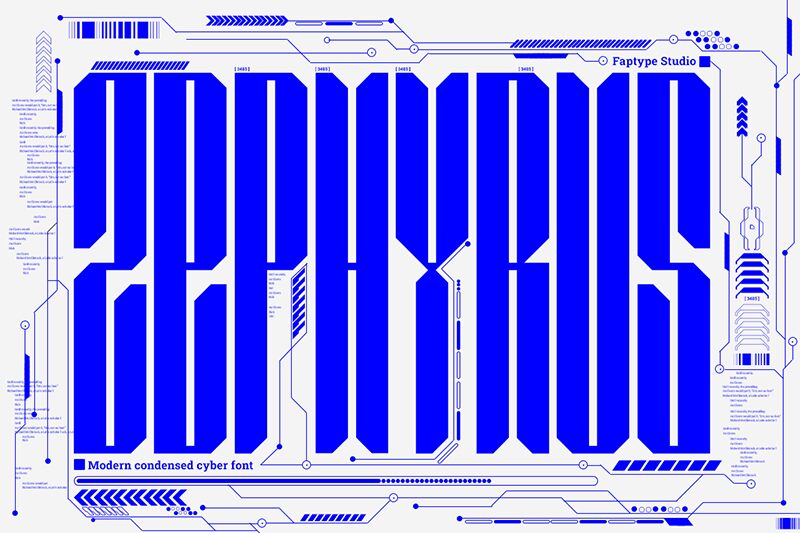
Zephyrus
Zephyrus font by Ferry Ardana Putra is an elongated and decorative Gothic typeface. Riding on a futuristic wave, all characters present themselves as symmetrical and very much condensed. While the overall tone is ornate, combinations of glyphs still manage to be highly readable.
Many projects can benefit from a small dose of Zephyrus font. Among them are movies titles, book cover designs for fantasy books, logos for different products, packaging that attract consumers in stores, and shop signs. Fashion brands could also showcase the power of Zephyrus within a stylish article page headline or magazine cover.